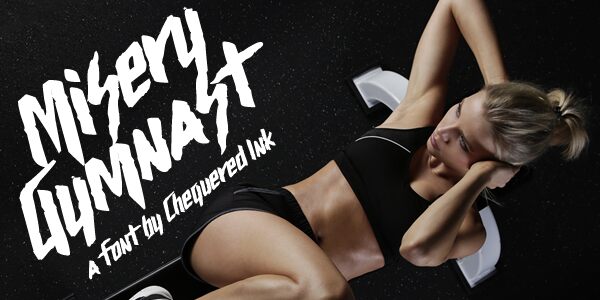
Misery Gymnast
Misery Gymnast is a captivating brush-style font designed by Allison James. Its condensed width and dynamic, fluid strokes exude a sense of motion and energy. The striking, dramatic appearance of the letterforms lends itself well to impactful headlines, bold branding, and expressive typographic designs.
This font's versatility shines through its capacity to convey a range of moods, from gritty and edgy to elegant and refined. Its distinctive aesthetic makes it an ideal choice for projects seeking to establish a memorable visual identity, whether in the realms of editorial, fashion, or graphic design.
Misery Gymnast by Chequered Ink.